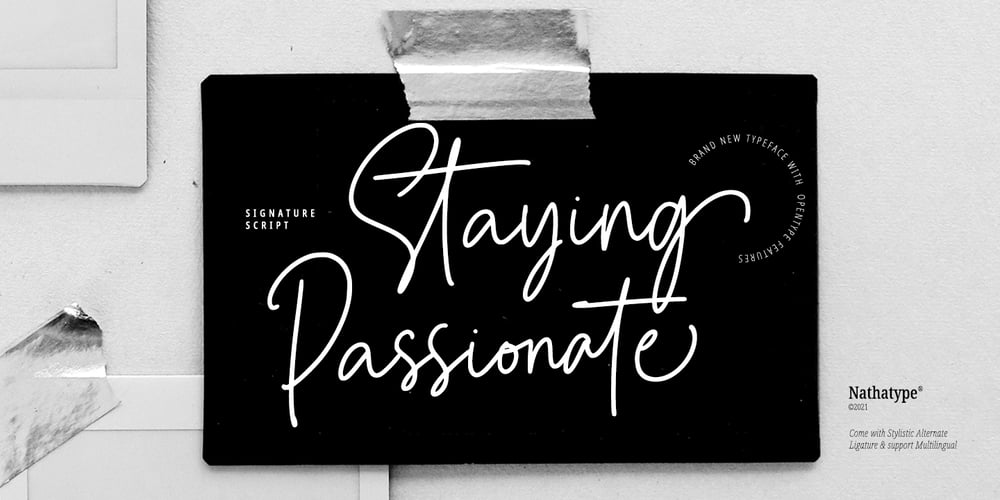
Staying Passionate Font Family was designed by Donis Miftahudin and published by Nathatype. Staying Passionate contains 1 styles and family package options. Are you trying to make an elegant, modern, and stylish statement with your invitations, social media, website, or printed materials? Ready to enchant your audience and enhance your branding? Staying Passionate-A Script FontStaying Passionate is a gorgeous handcrafted script font that will whisk you away to a place of style! We are hoping that through this elegance and passion edged font, you can maximize your designs, reign in sales or make lasting impressions. The ideal font for social media banners; posts, and ads, printed quotes, t-shirt designs, packaging, or even as a modern text overlay to any background image. Staying Passionate includes Multilingual Options to make your branding globally acceptable. Features: Standard Ligatures PUA Encoded Numerals and Punctuation Thank you for downloading premium fonts from Nathatype